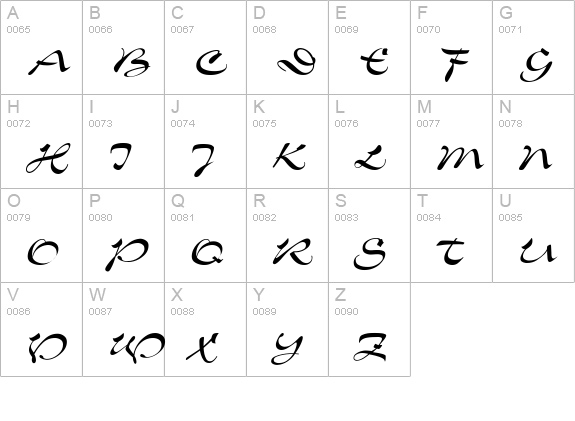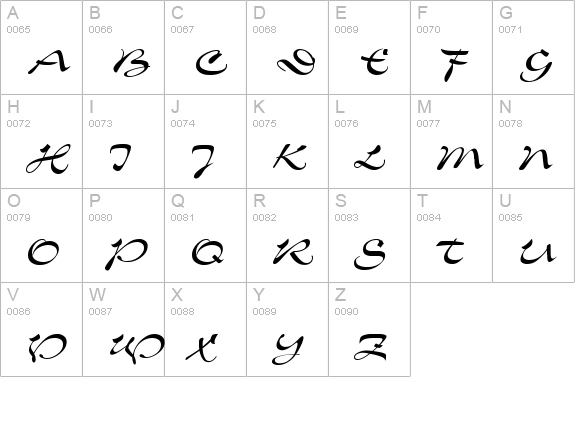
Glands-Normal Font Details
Glands-Normal is the standard, neutral variant in the Glands typeface family \xE2\x80\x94 well suited to general body text, paragraphs, and standard typographic work.
Glands-Normal font is a modern and stylish typeface that exudes elegance and sophistication. With its sleek lines and clean design, this font is perfect for a wide range of projects, from branding to graphic design. The smooth curves and sharp edges of Glands-Normal font create a striking visual impact that is sure to impress. Best of all, Glands-Normal font is completely free to download at FontsMarket.com. This means you can add this versatile font to your collection without any cost, making it a fantastic choice for both personal and commercial use. Whether you're creating a logo, designing a website, or crafting a brochure, Glands-Normal font is sure to elevate your project to the next level. Download it today and see the difference it can make in your designs!